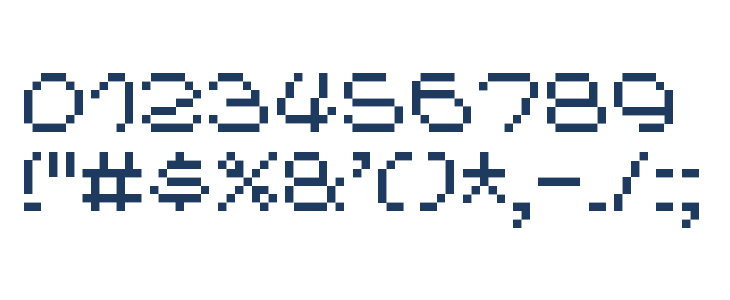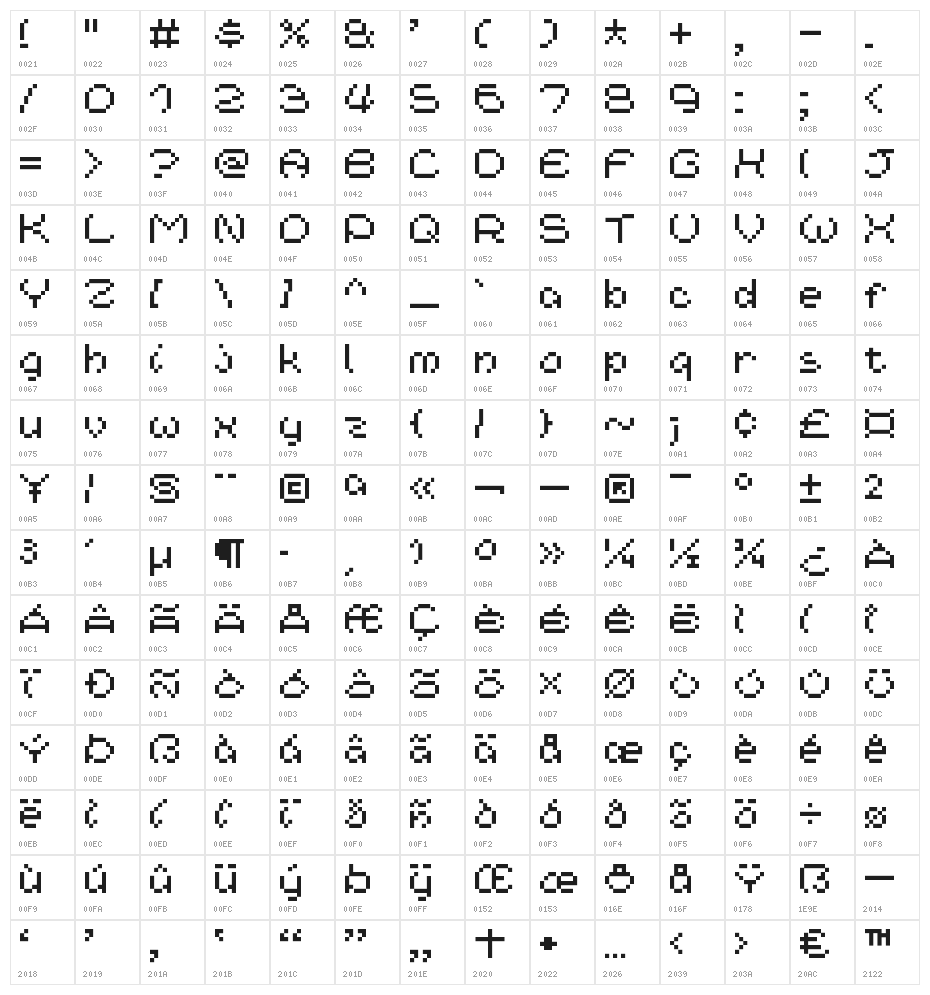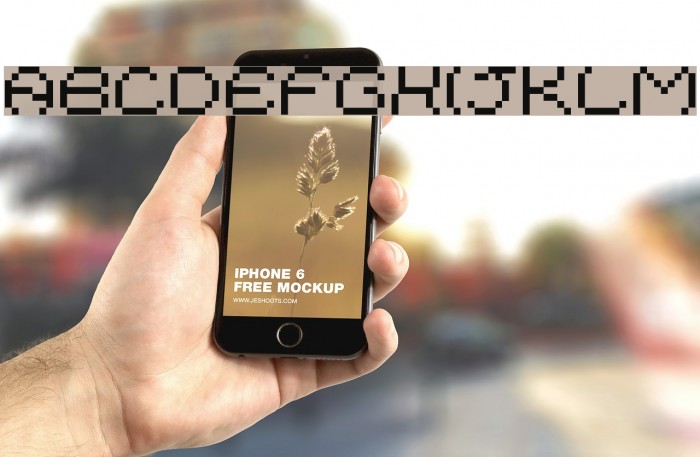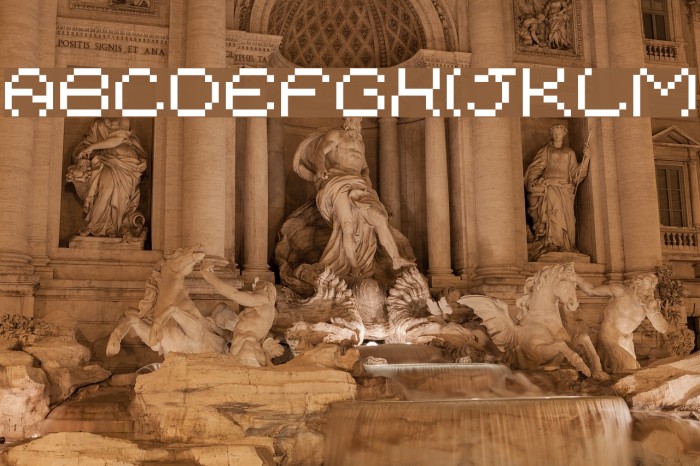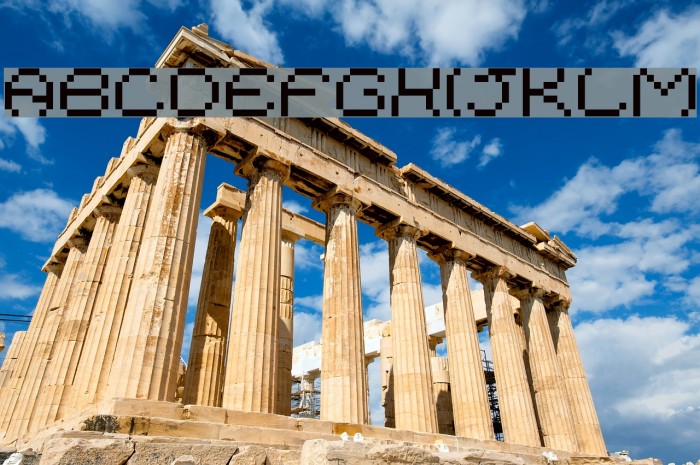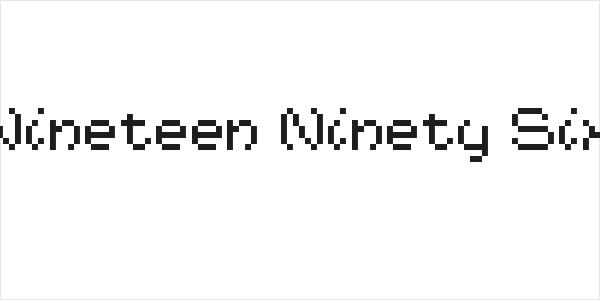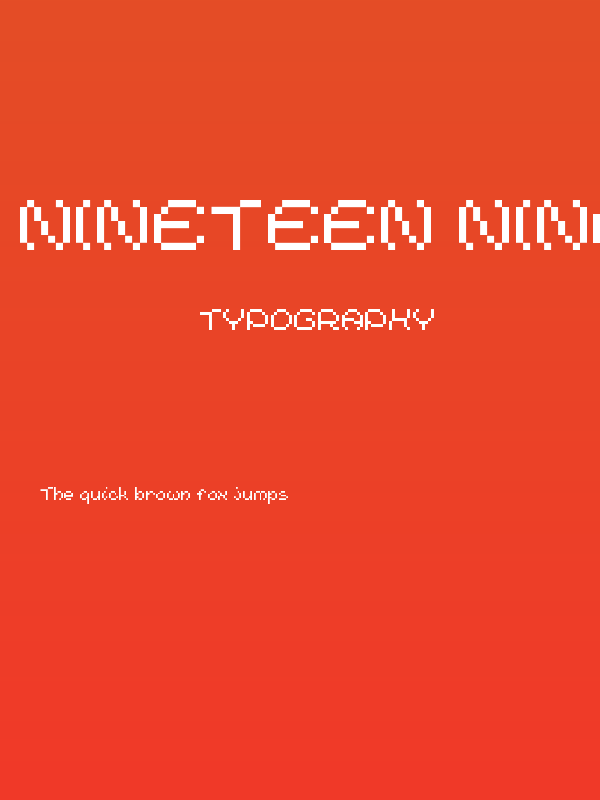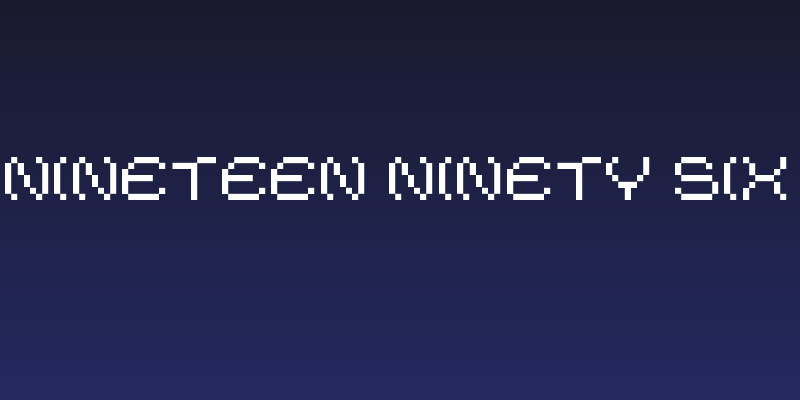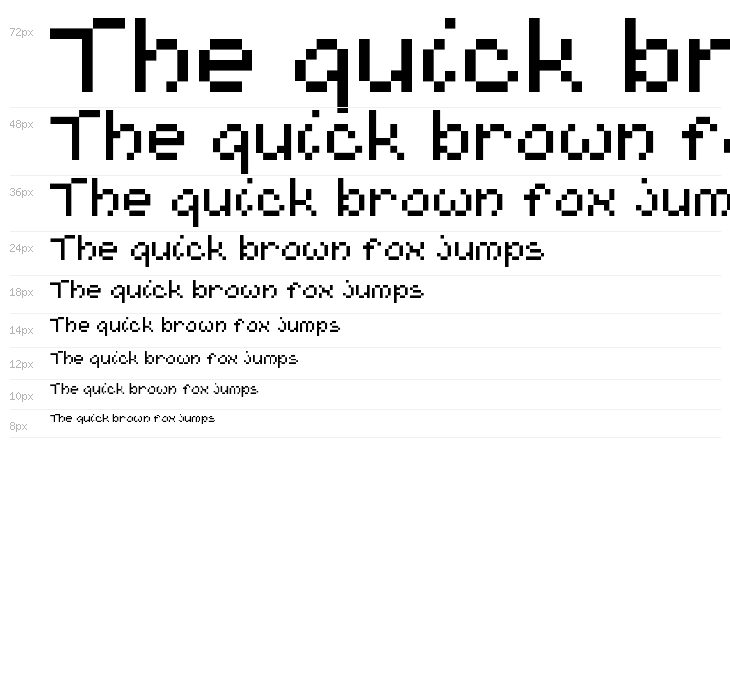
Nineteen Ninety Six Font
Nineteen Ninety Six Description
This font features a pixelated, blocky design reminiscent of early digital displays and retro video games. Each character is constructed with uniform square pixels, giving it a distinctly geometric and grid-like appearance. The uppercase and lowercase letters maintain consistent proportions, while the numerals and special characters follow the same pixelated style. This font evokes a sense of nostalgia, ideal for projects that aim to capture the essence of the 1980s and 1990s digital era. Its simplicity and clarity make it suitable for both display and text purposes, though it is best used in contexts where a retro or tech-inspired aesthetic is desired.
| Use Case | Headlines, Logos, Digital Art |
| Proposed Projects | Ideal for retro-themed designs, video game graphics, digital art projects, and tech-inspired branding. |